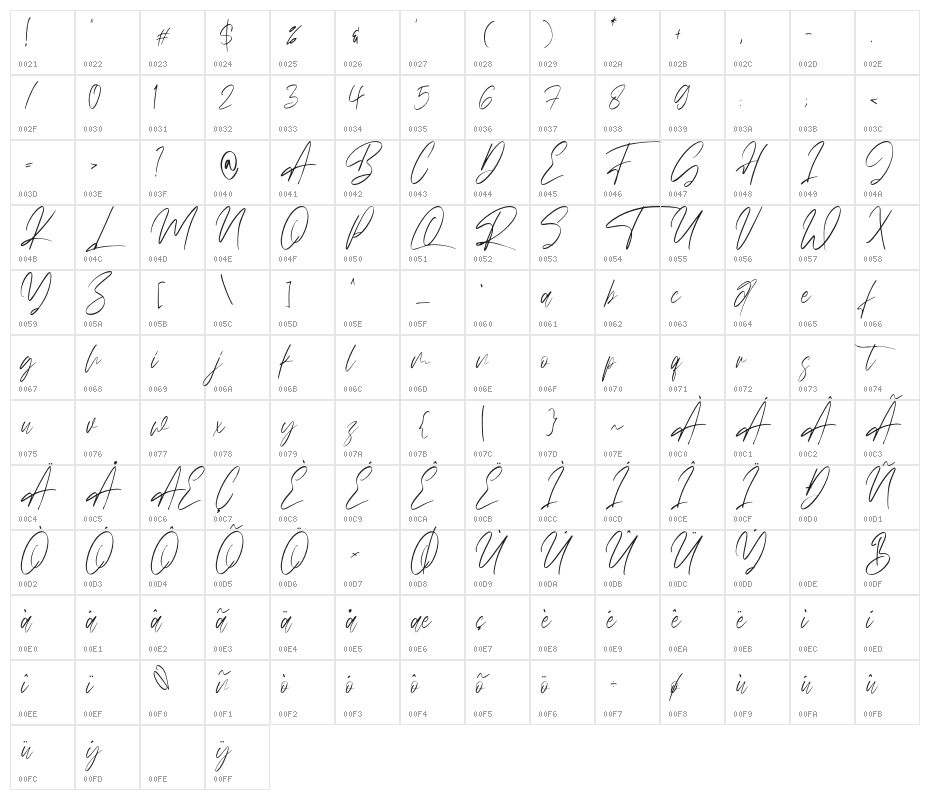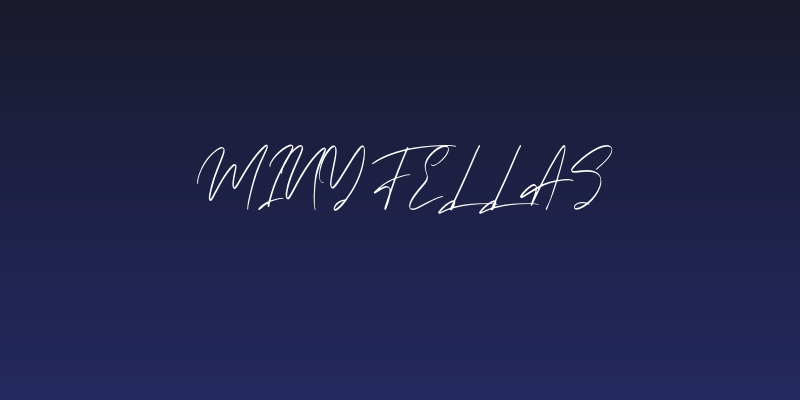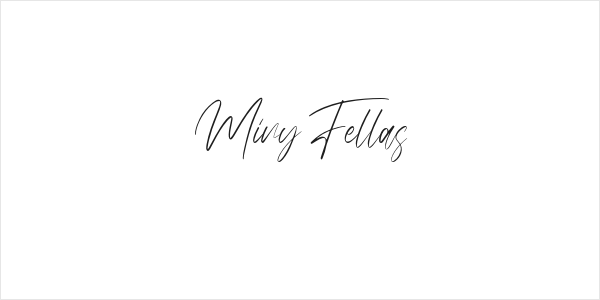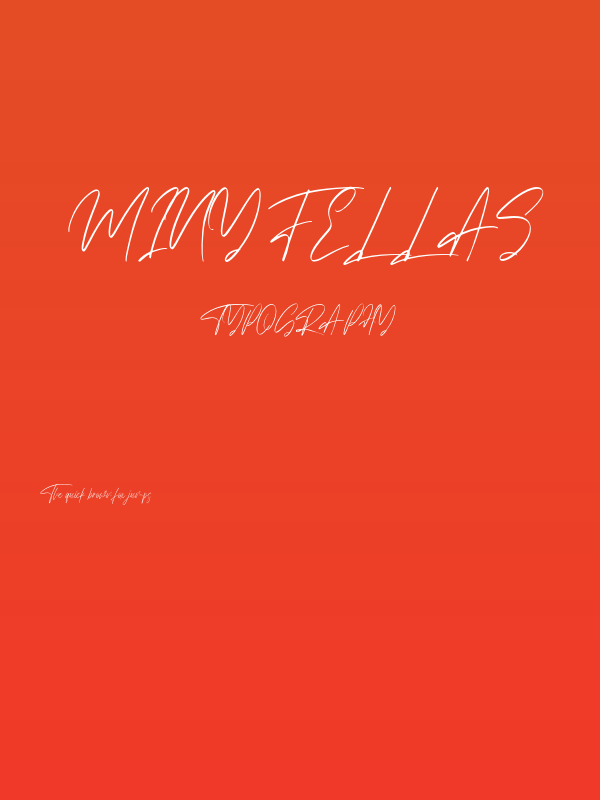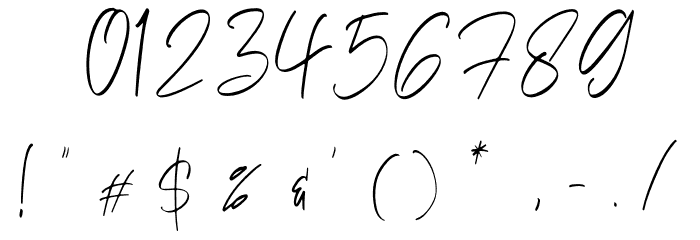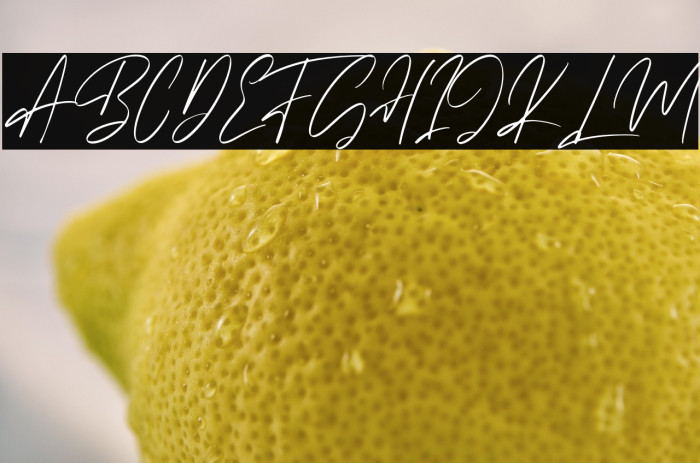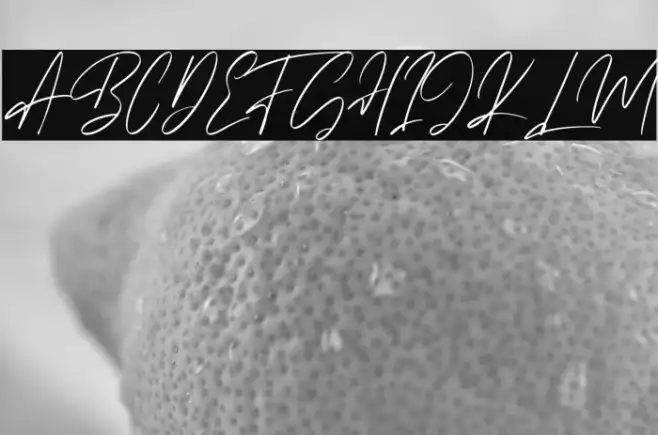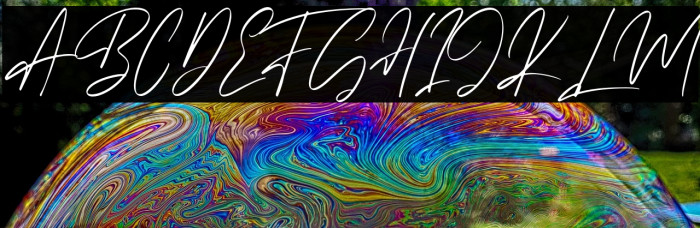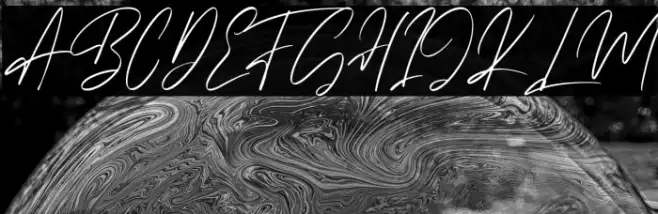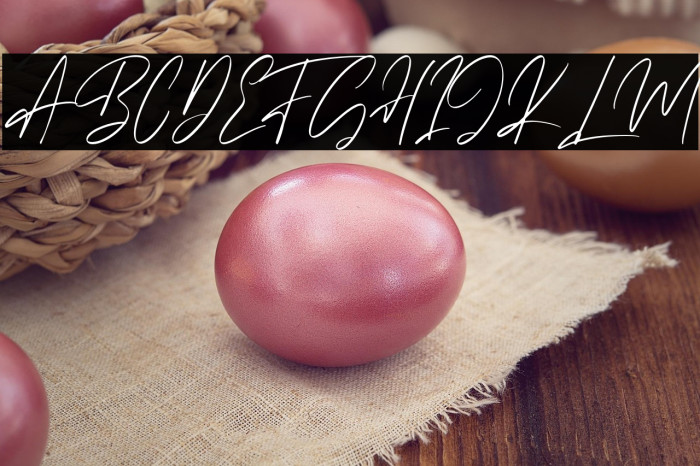
Miny Fellas Font
Miny Fellas Description
This font exudes a dynamic and fluid style, characterized by its cursive and handwritten appearance. The letters are elegantly connected, with a natural flow that mimics the strokes of a calligrapher's pen. The uppercase letters are bold and sweeping, while the lowercase letters maintain a consistent rhythm and grace. Numbers and special characters follow the same fluid style, ensuring a cohesive look across all text. The overall design is both artistic and legible, making it suitable for creative and expressive projects.